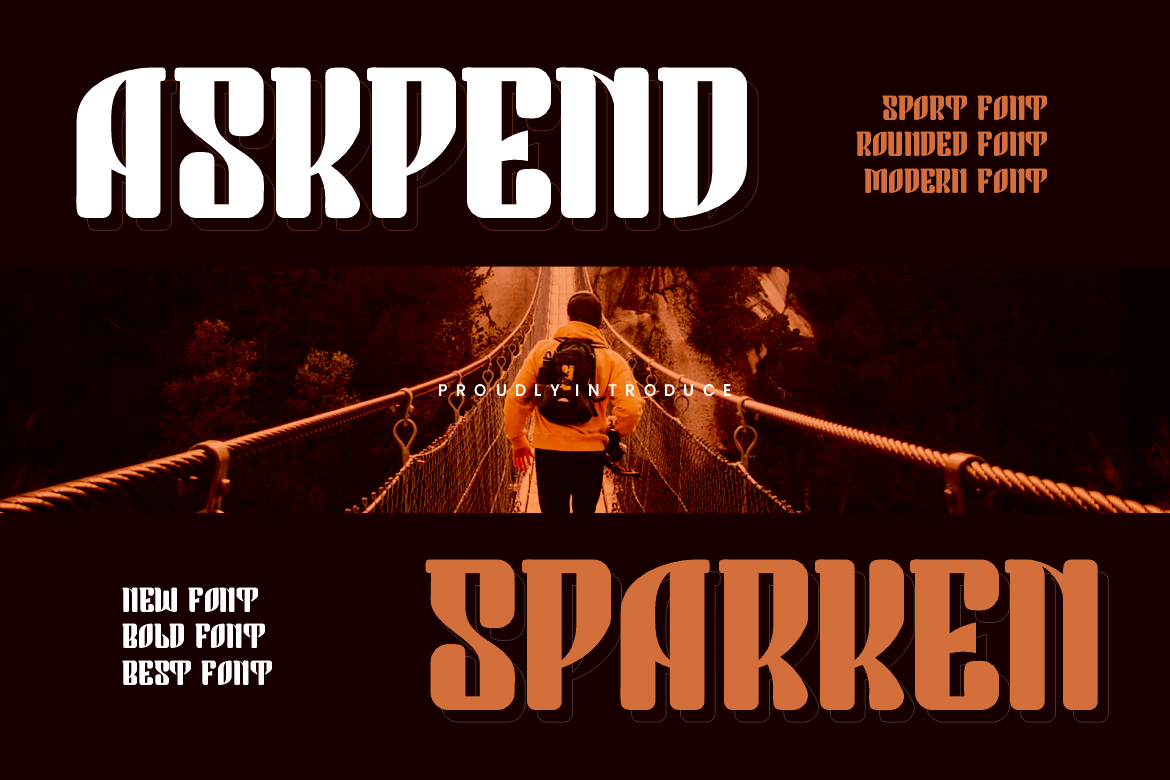
Askpend Sparken Sport Rounded Font
Askpend Sparken Font is a bold and authentic display font. The font is suitable for any branding project like poster, logo, sport, and many more. Outstanding in a wide range of contexts.